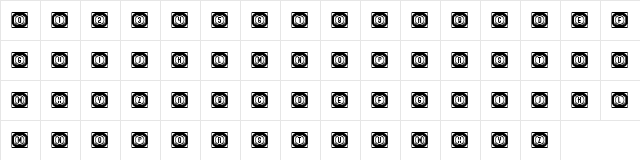
Ordinary Capitals Inverted Regular
Design Context for Ordinary Capitals Inverted Typeface
Ordinary Capitals Inverted offers clean, dependable letterforms without strong stylistic allegiance, making it a practical choice for designers who need flexibility.